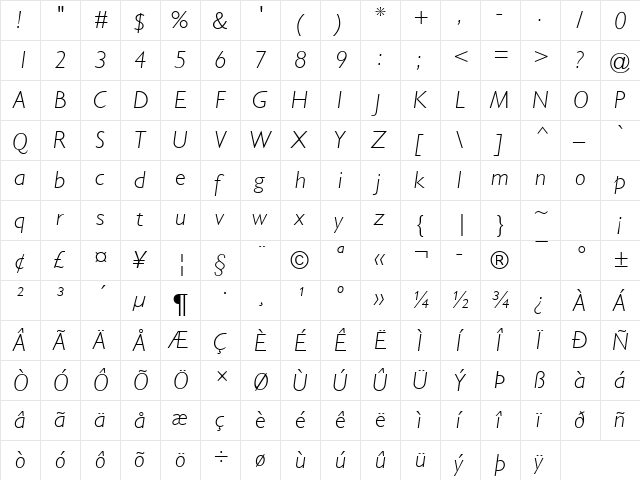
Gill Sans MT Light Italic Font Preview
| Foundry | Monotype Typography |
| Designer | Eric Gill |
Design Context for Gill Sans MT Light Typeface
Gill Sans MT Light takes a measured approach to typography — its balanced proportions and neutral character make it a reliable workhorse for both digital and print work. Its italic angle brings a sense of urgency and motion to the letterforms. The delicate stroke weight brings airiness and refinement to layouts.
Pro Tip: Use Gill Sans MT Light for emphasis, pull quotes, and subheadings where its slanted energy can add rhythm to the layout.